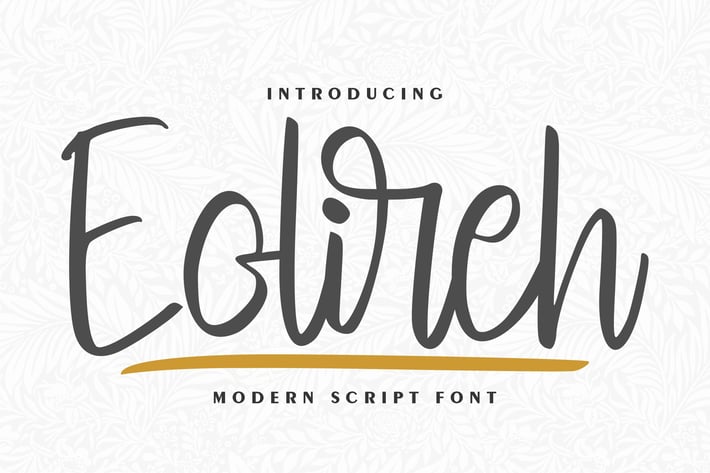
Eolireh | Modern Script Font
Eolireh | Modern Script Font with a calligraphy style, So beautiful on invitation like greeting cards, branding materials, business cards, quotes, posters, and more!